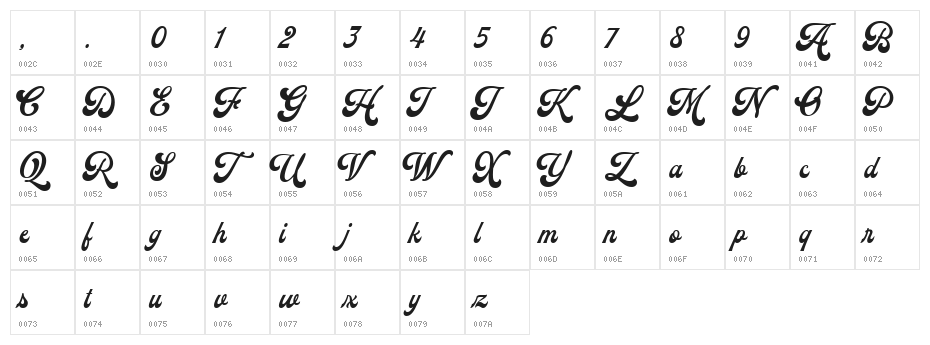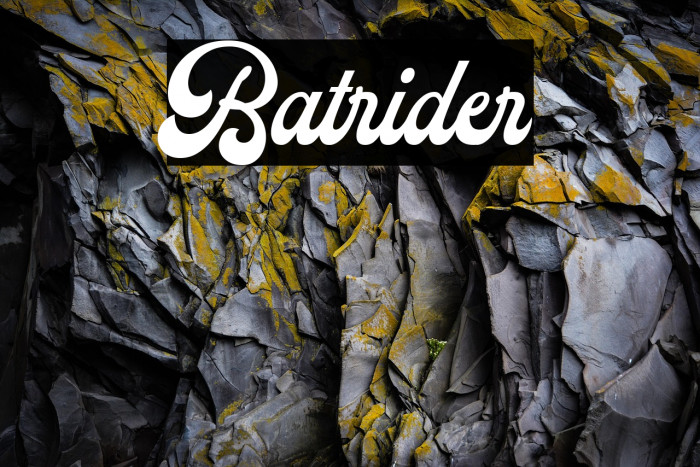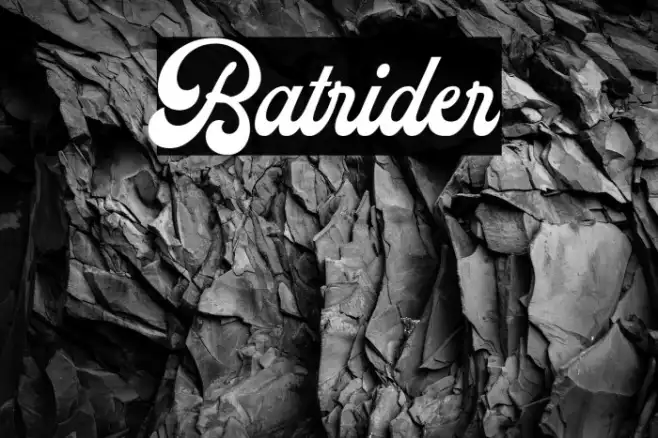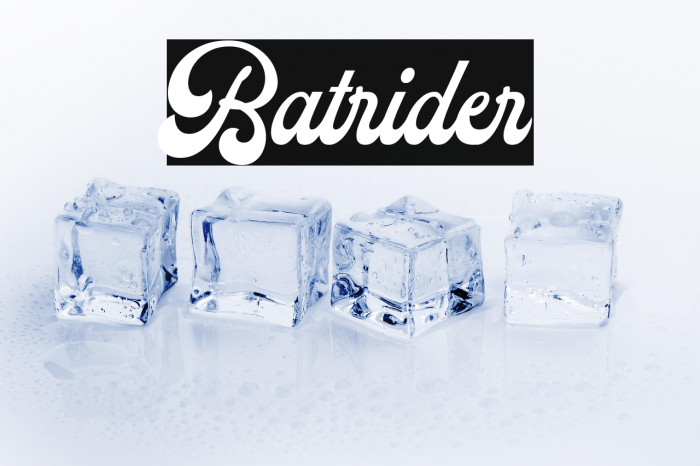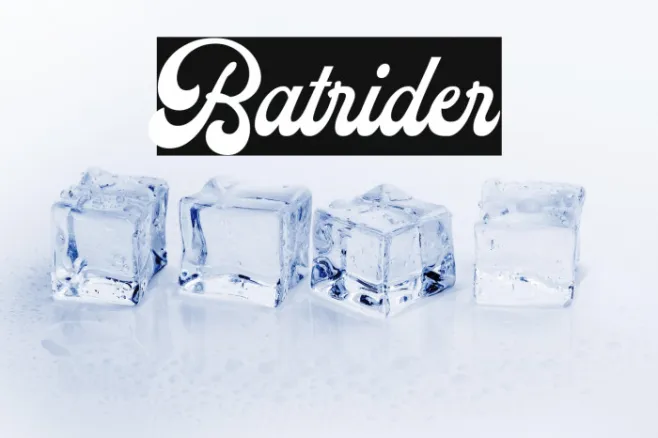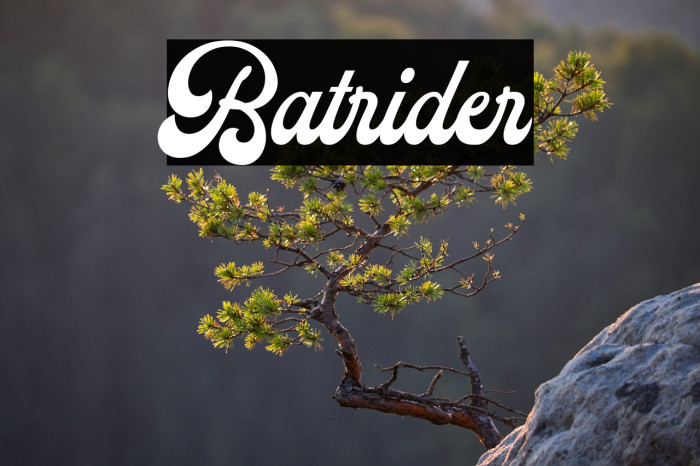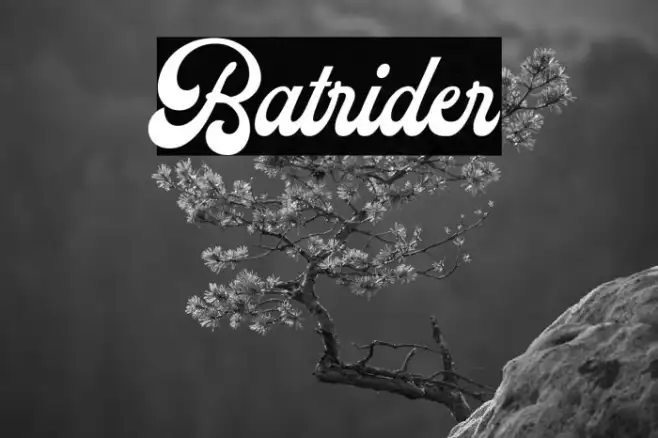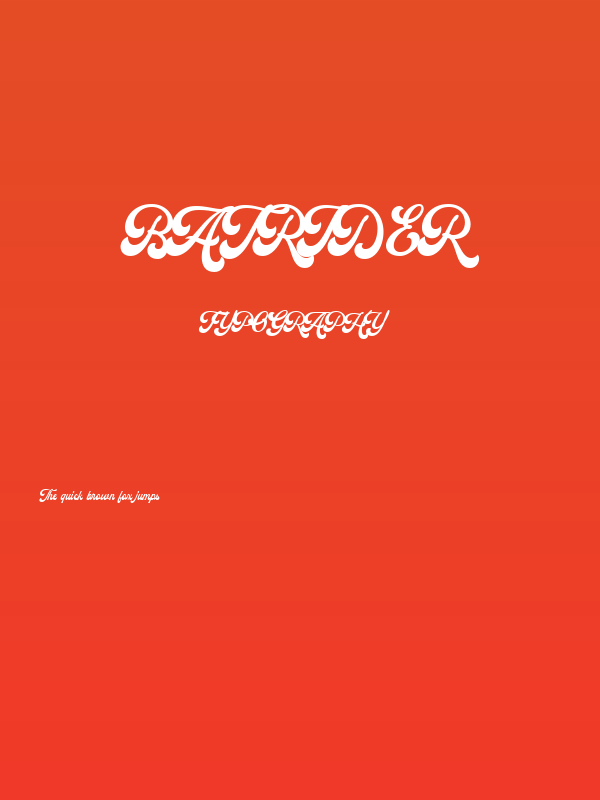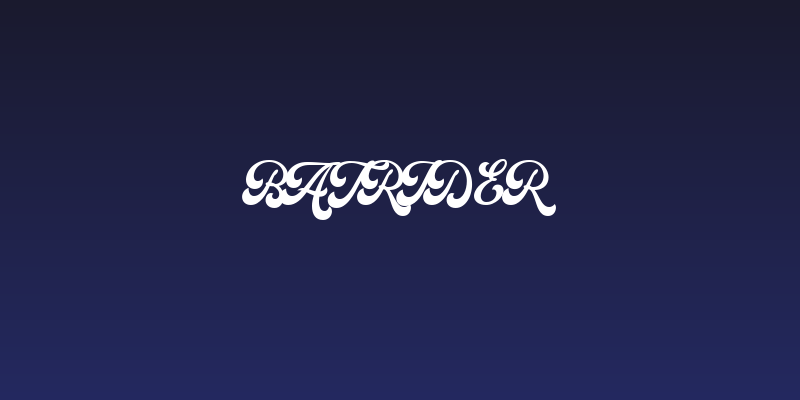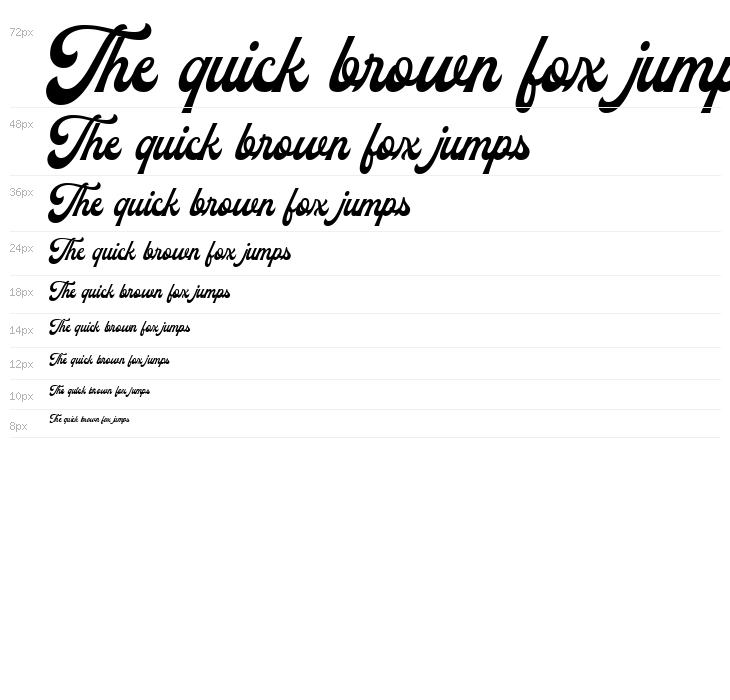
Batrider Font
Batrider Description
This font features a bold and flowing script style with elegant curves and flourishes. The uppercase letters are particularly ornate, with sweeping lines that give a sense of movement and sophistication. The lowercase letters maintain a consistent style, offering a harmonious blend with the uppercase. Numbers are clear and bold, matching the overall aesthetic. The font's design is reminiscent of classic calligraphy, making it suitable for projects that require a touch of elegance and tradition. Its bold strokes and high contrast make it stand out, ensuring readability while maintaining its decorative appeal.
| Proposed Projects | Ideal for wedding invitations, luxury branding, elegant signage, and decorative headlines. |